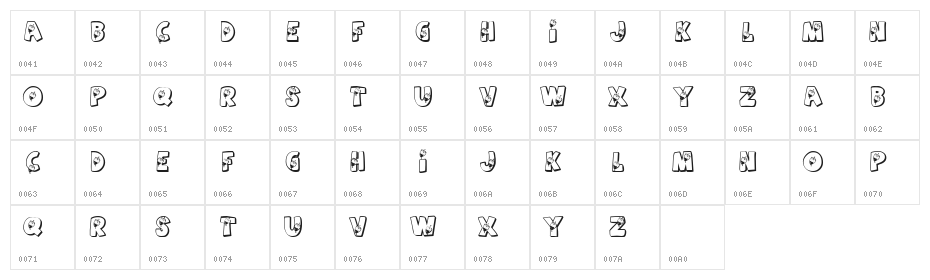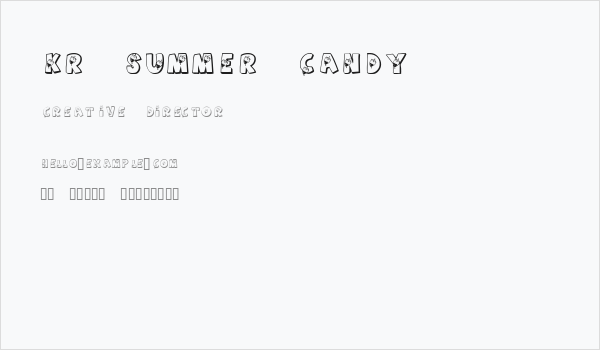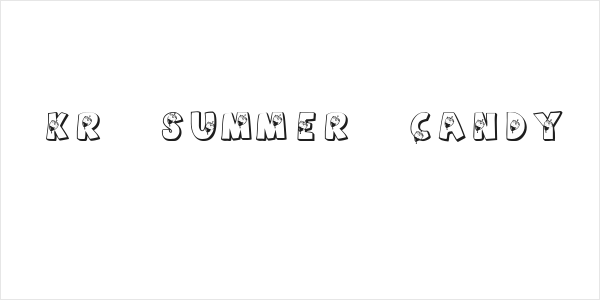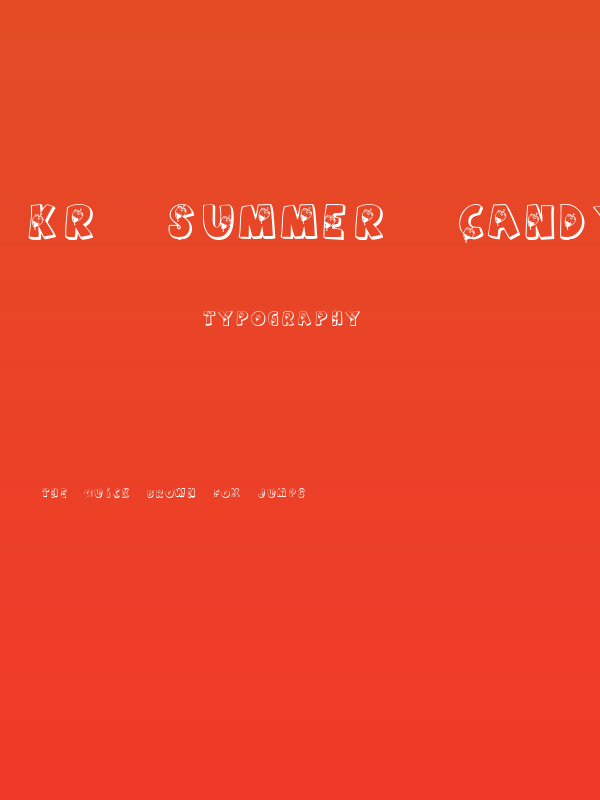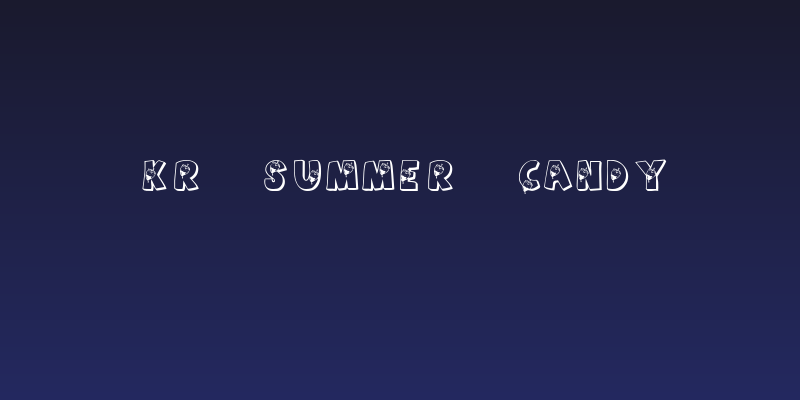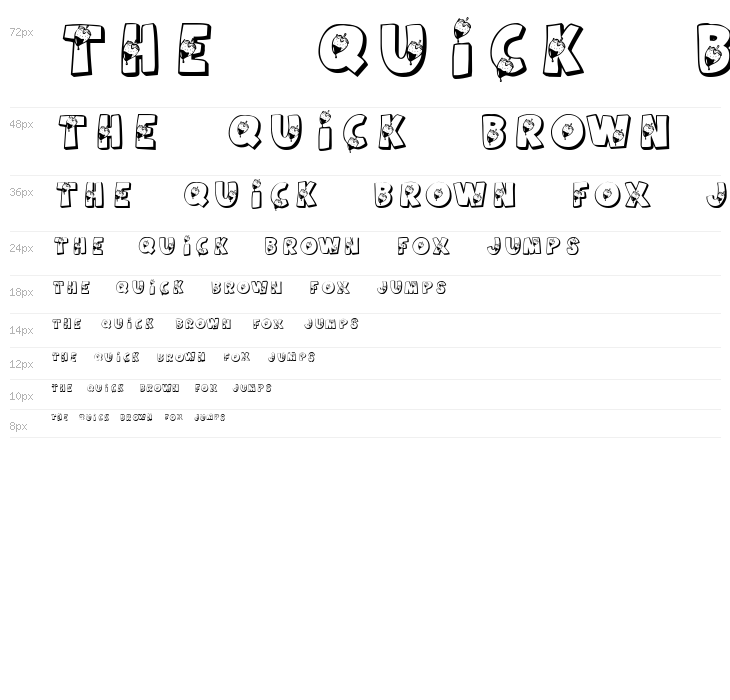
KR Summer Candy Font
KR Summer Candy Description
This playful and decorative font features bold, uppercase letters with a unique twist. Each character is adorned with whimsical, candy-like embellishments, giving it a fun and lively appearance. The font has a thick outline that enhances its visibility and adds a cartoonish charm. The characters are evenly spaced, ensuring readability while maintaining a playful aesthetic. This font is perfect for projects that aim to convey a sense of fun and creativity, such as children's books, party invitations, or playful branding materials.
| Overall Style | Playful, Cartoonish |
| Proposed Projects | Ideal for children's books, party invitations, playful branding, and creative posters. |